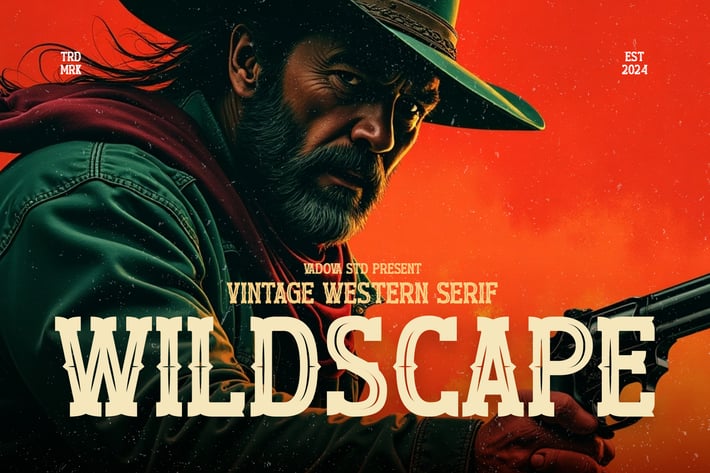
Wildscape Creative Font
Wildscape is a bold vintage western serif font that captures the grit and spirit of the old frontier. With rugged character forms, classic serif details, and a textured finish, this typeface is perfect for crafting logos, badges, posters, and product labels with a nostalgic western flair. Whether used for cowboy-themed branding, beer packaging, or historical projects, Wildscape brings a strong, heritage-driven presence that stands out in any design.
Main Features
Uppercase & Lowercase characters
* Numeral & Punctuations